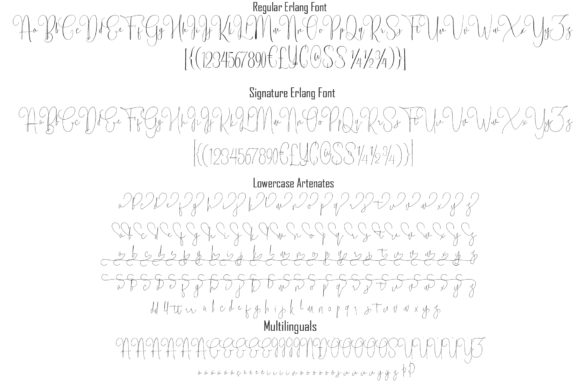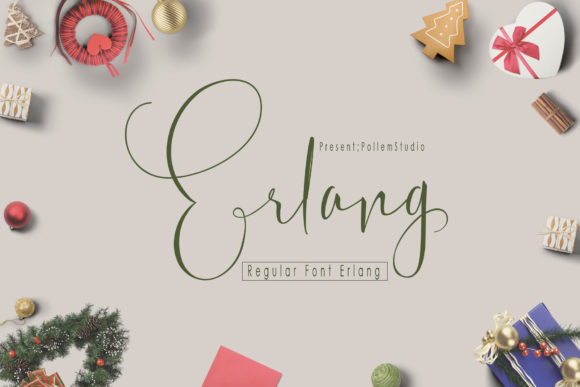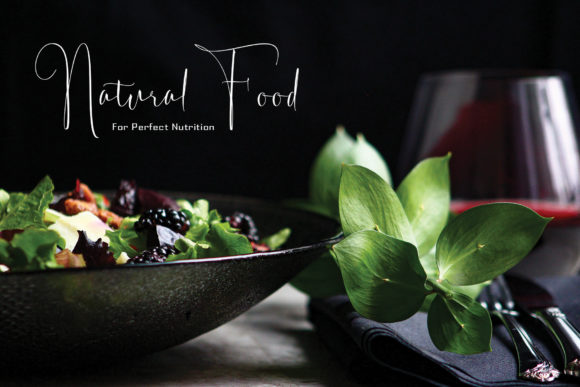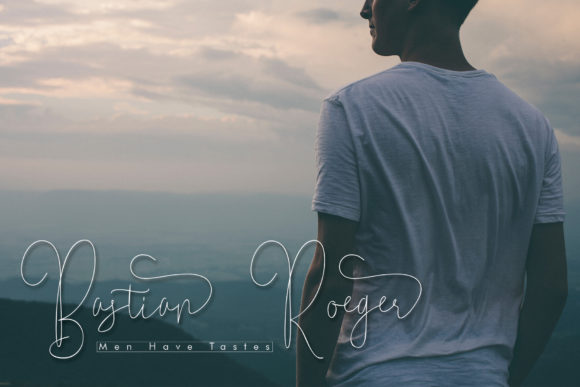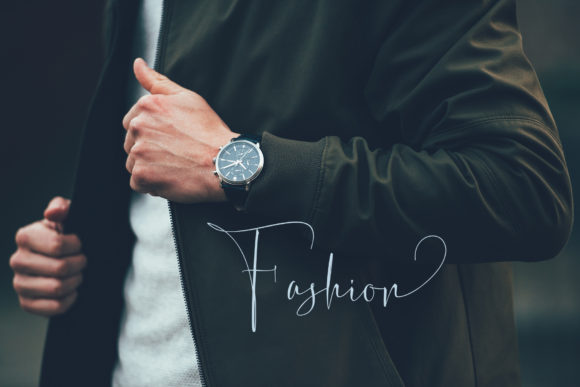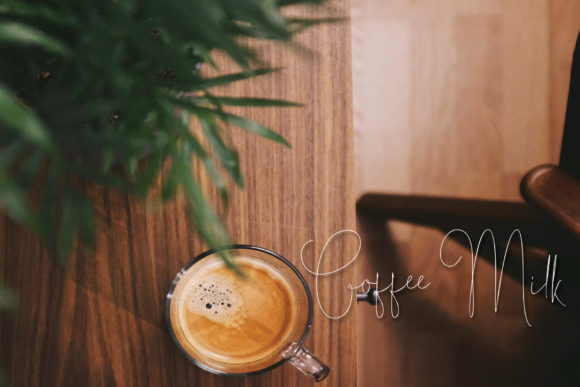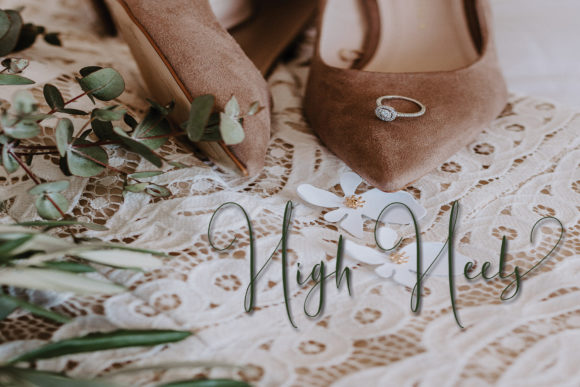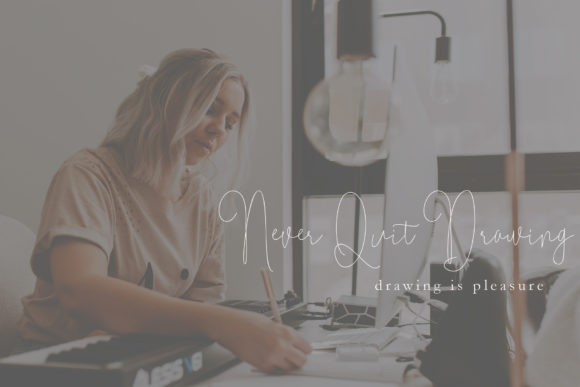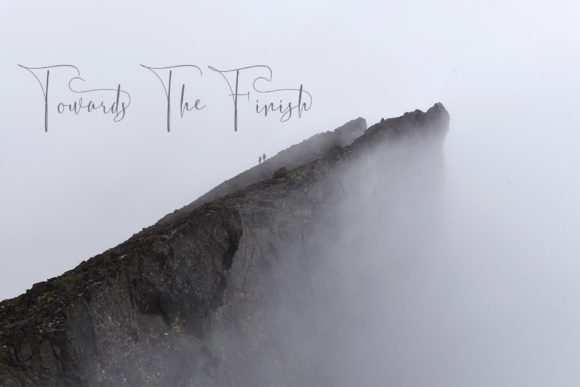
HomeScript FontsErlang Font Script Fonts Erlang Font FacebookXPinterestWhatsApp Erlang Font Poster 2 Erlang Font Poster 3 Erlang Font Poster 4 Erlang Font Poster 5 Erlang Font Poster 6 Erlang Font Poster 7 Erlang Font Poster 8 Erlang Font Poster 9 Erlang Font Poster 10 About Erlang Font Erlang is a light and delicate handwritten font with amazing swashes. Fall in love with its contemporary elegance. DOWNLOAD NOW People also explored Spark Joy Font Brocers Font Happy Amellia Font Cupcake Font Batsy Font Monday Mandala Font Humble Font Sparkling Font Tiny Script Font 320 0 TagsErlang Font Previous articleBritish FontNext articleGolden Class Font LEAVE A REPLY Cancel reply Comment: Please enter your comment! Name:* Please enter your name here Email:* You have entered an incorrect email address! Please enter your email address here Website: Save my name, email, and website in this browser for the next time I comment. Personal Use Free Coolvetica Font Personal Use Free Read more about this font Crayones Personal Use Free Read more about this font Panaroe Personal Use Free Read more about this font Dr.Marz Personal Use Free Read more about this font BLOG Top 7 Google Fonts Alternatives for Faster and Privacy-Friendly Web Design (2025) Top 7 Google Fonts Alternatives for Faster and Privacy-Friendly Web Design (2025) When it comes to web typography, Google Fonts has long been the go-to... To increase your work productivity, choose the most readable fonts. Fonts That Capture the Spirit of New York City Elegant Wedding Invitation Fonts – Handwritten & Script Fonts